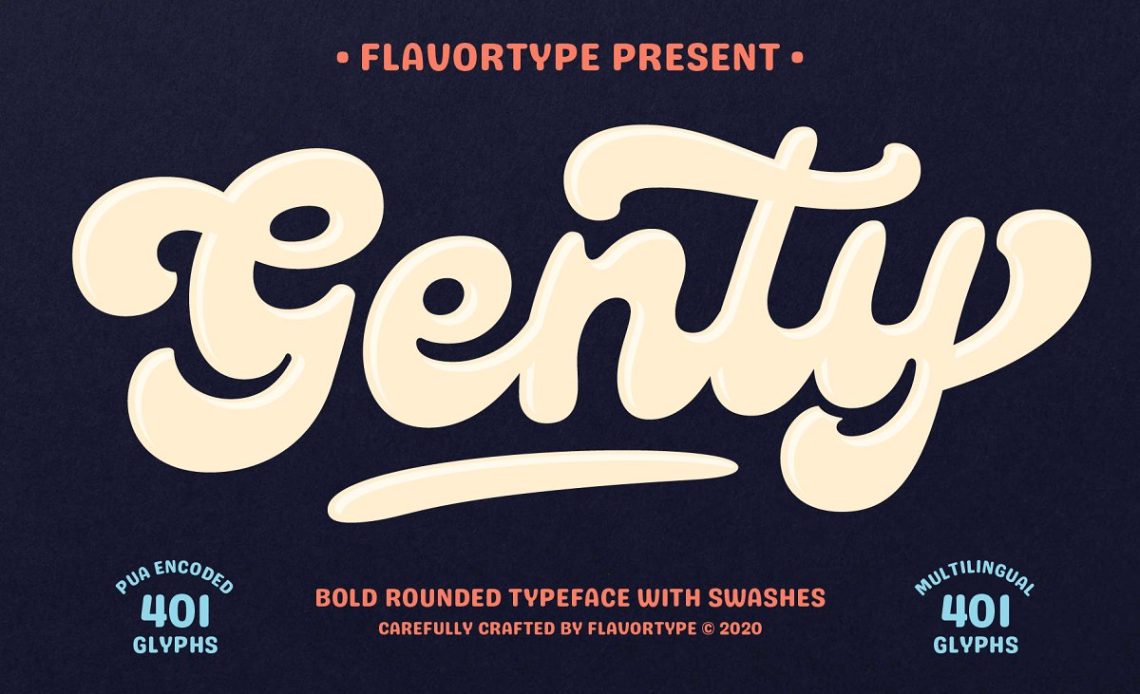
Looking for the best font for tattoo scripts? Look no further than Genty - the bold rounded typeface that meets all of your needs! Created by Mayang Putri Octaviani, Genty is a delightful and carefully crafted script typeface that combines the best features of Budge and Glaw to create a font that is both trendy and vibrant. Genty is not only versatile, but also fun, cute, and beautiful, making it the perfect choice for all of your design needs.
With tons of open type features, including beautiful swashes, contextual alternates, and stylistic sets up to 15 alternates, Genty is the complete package. Plus, with Uppercase swashes, swooshes under the letters, and swooshes at the final of the letters, Genty is perfect for creating unique and eye-catching designs.
But that's not all - Genty also comes with a font pair Sans Serif to complete your design needs. Plus, you'll also receive bonus extras, including graphic styles, social media stickers, and Instagram story templates. With transparent backgrounds, these stickers and templates are perfect for making your Instagram stories more lively and engaging.
Whether you're working on branding, headers, logotypes, posters, magazines, packaging, food menus, or anything else, Genty can accommodate any design style. So why wait? Get happy with Genty and download it today! You'll receive font files, extras, and a specimen for Adobe Illustrator and PDF. Don't settle for anything less than the best - choose Genty for all of your design needs today.